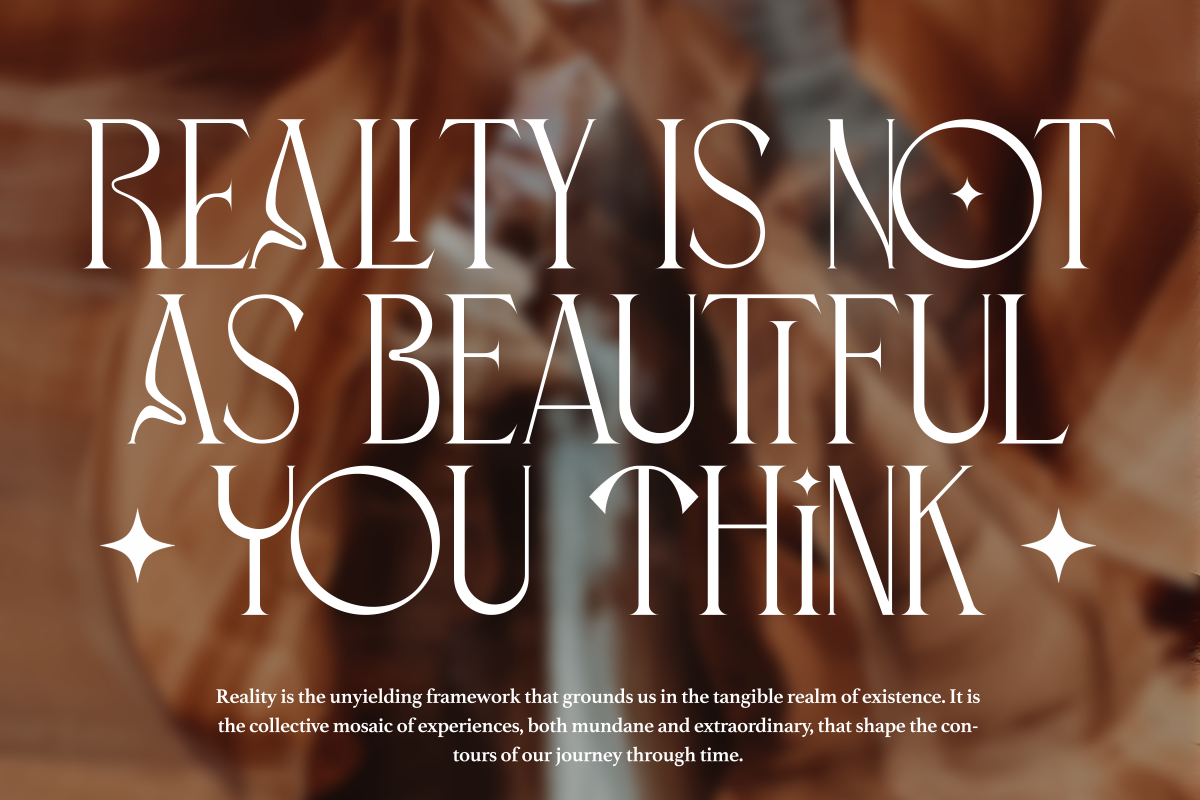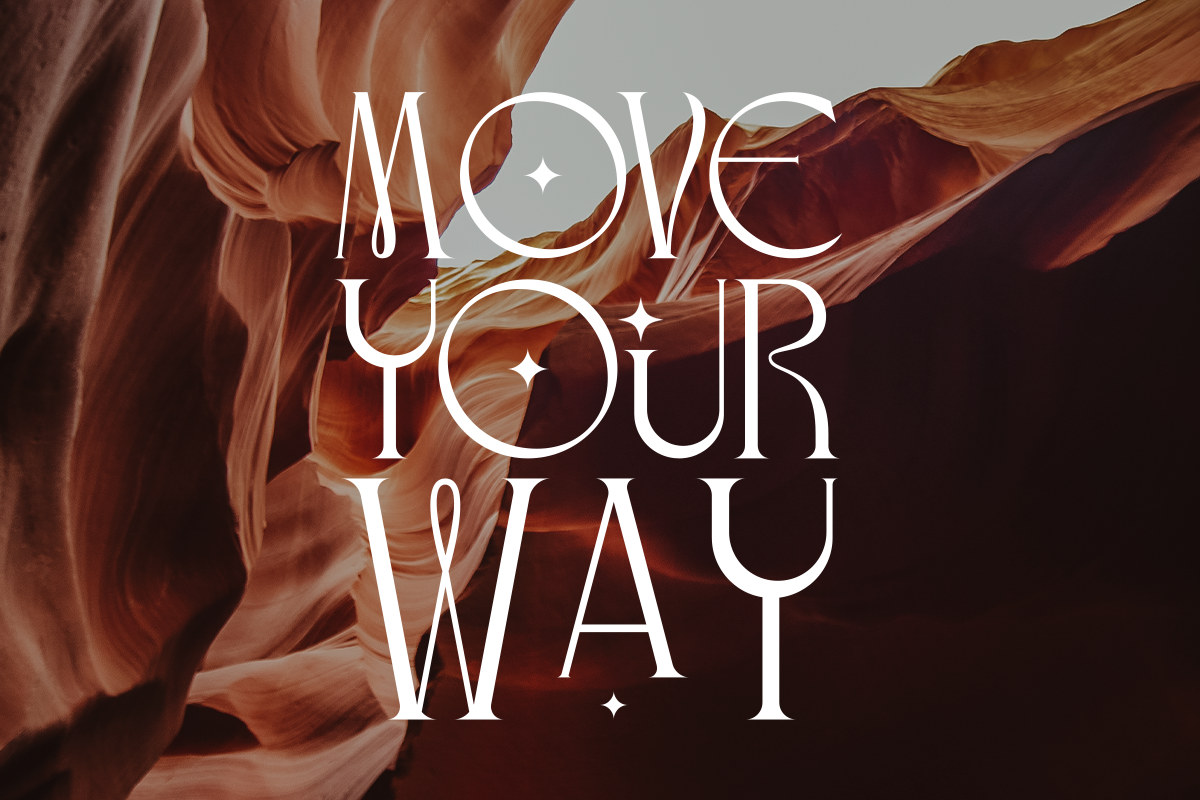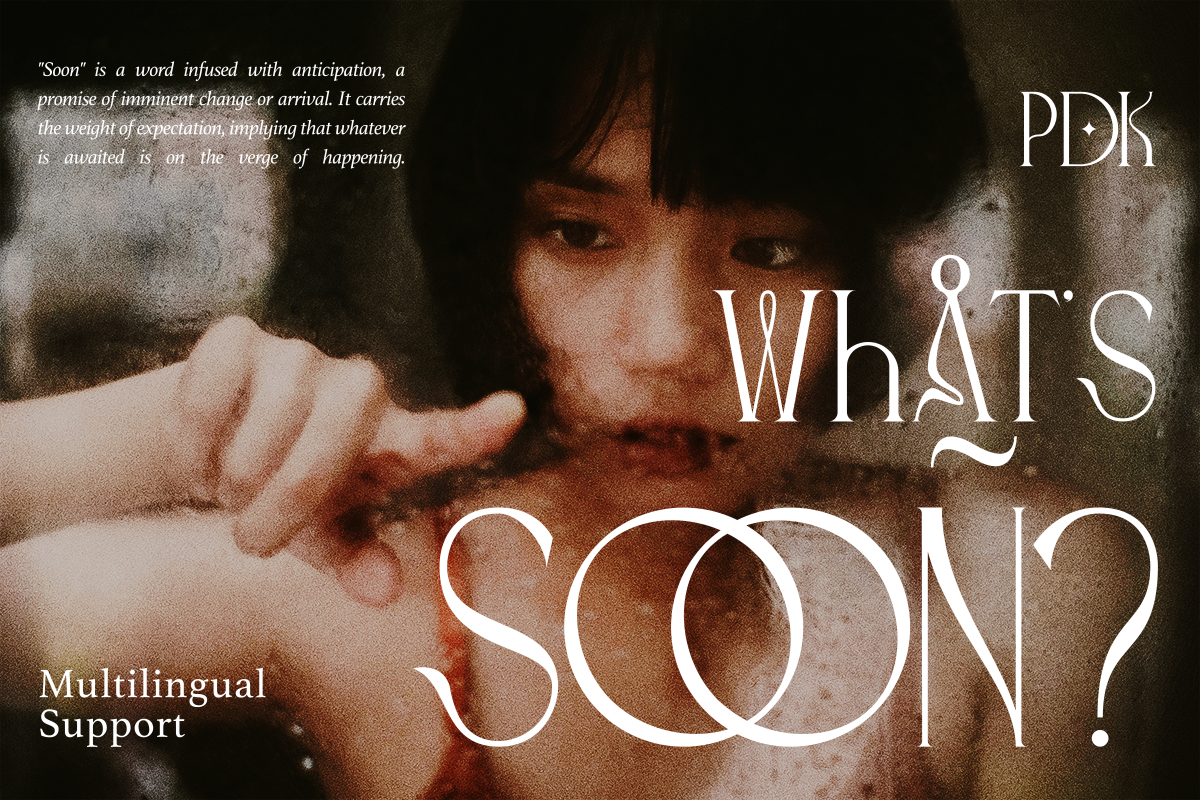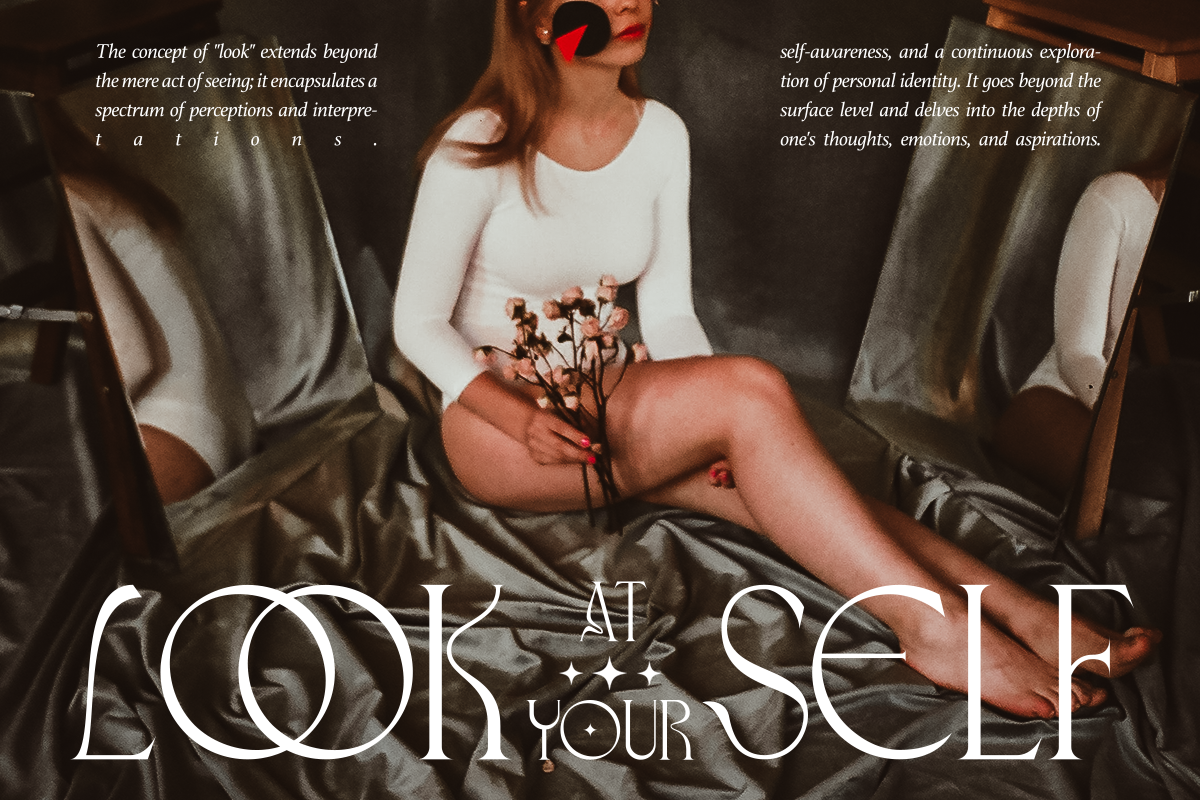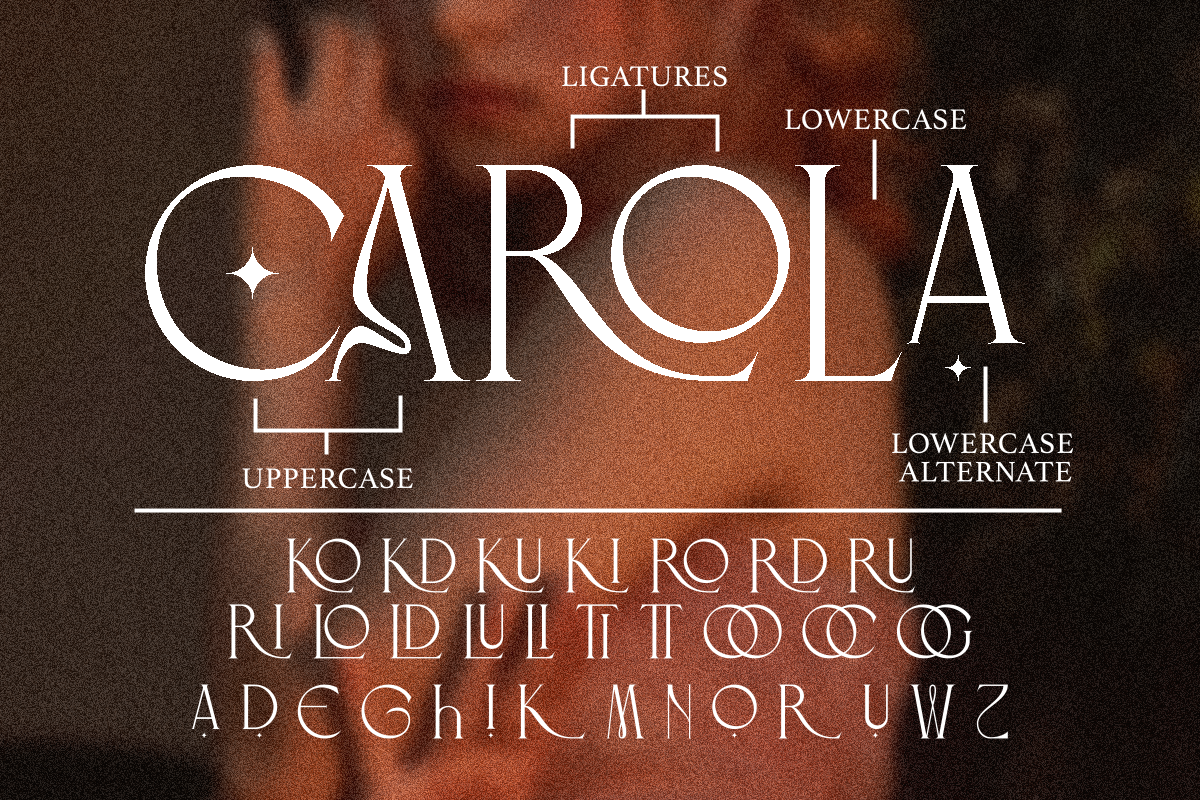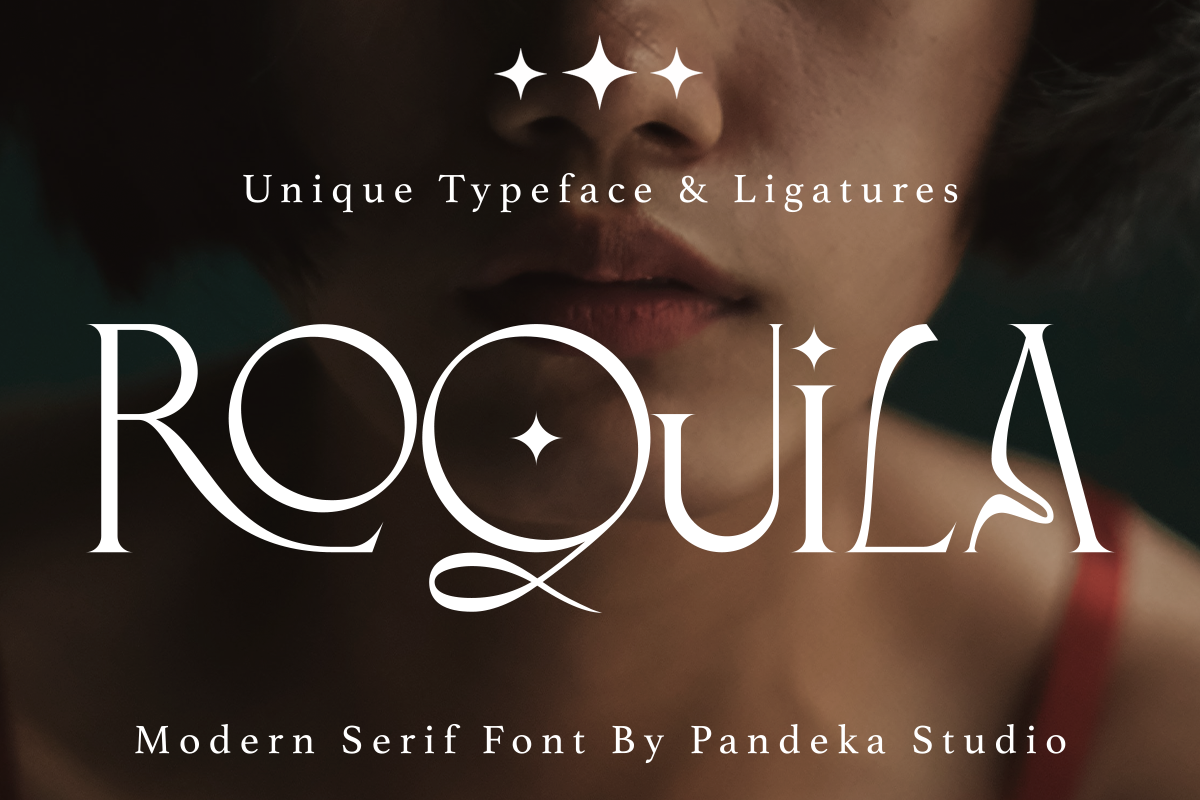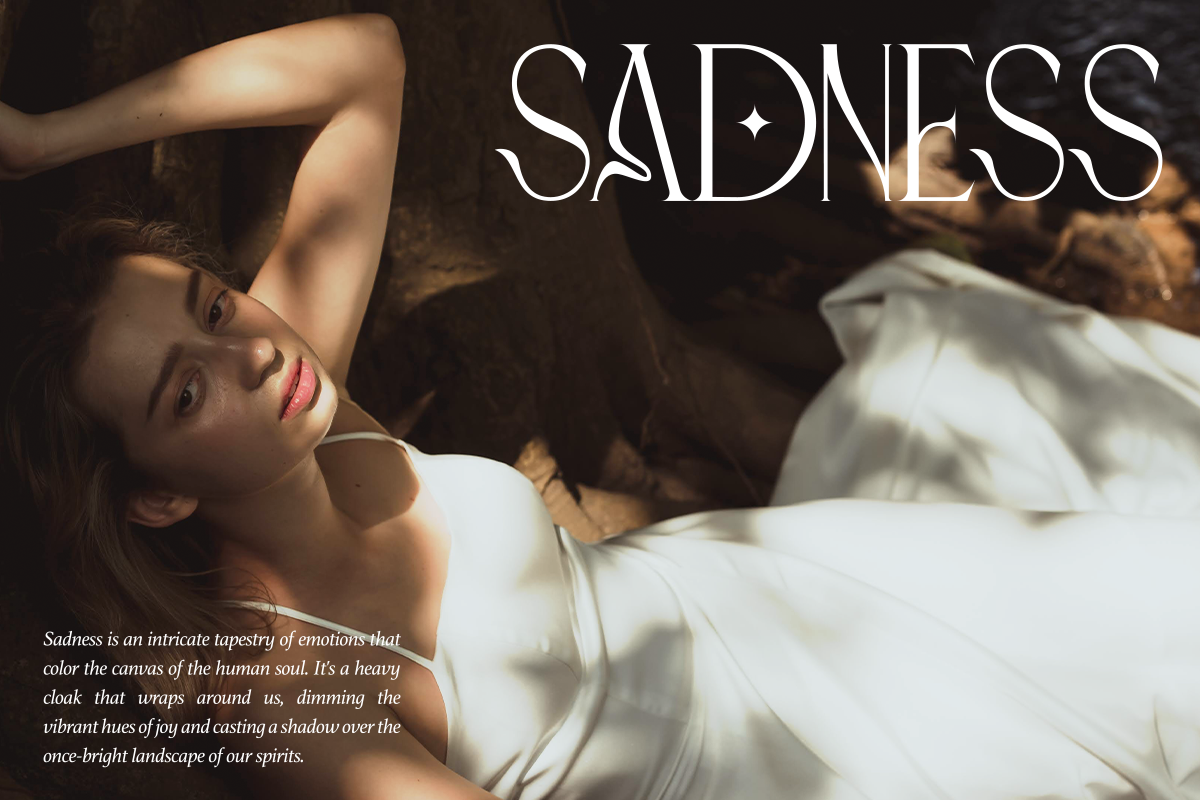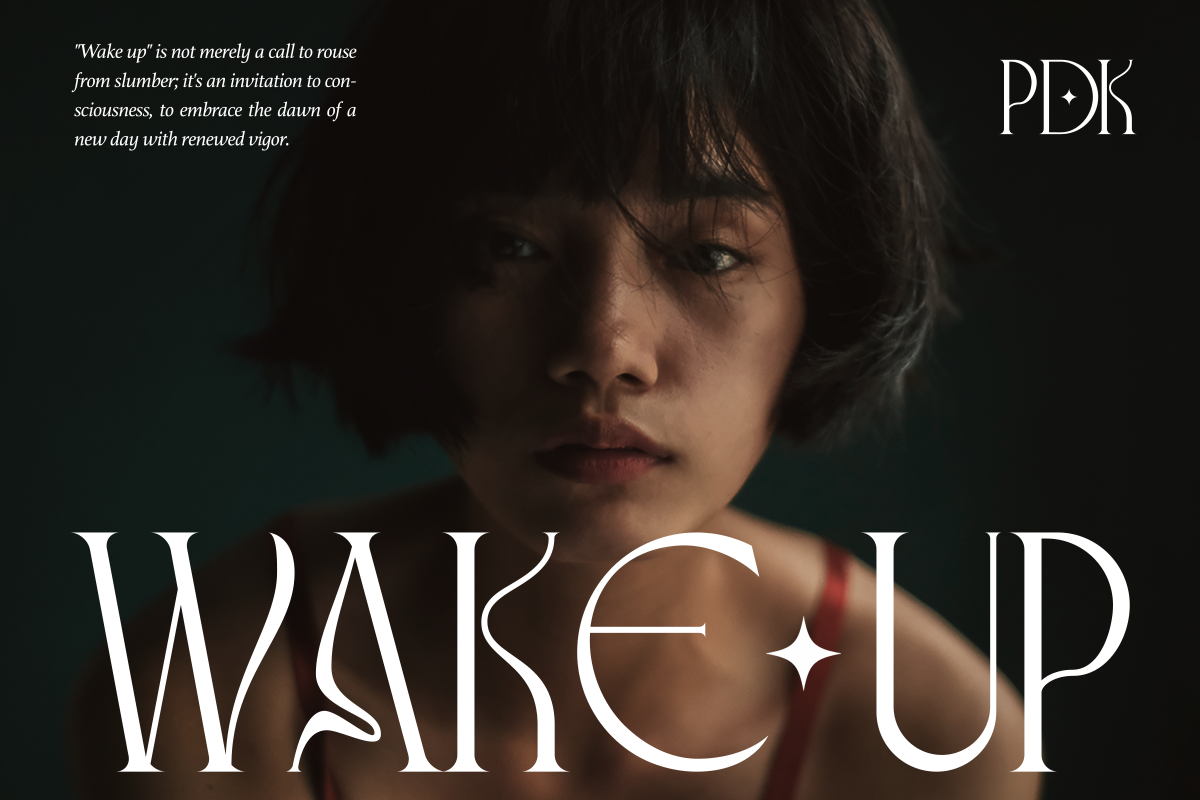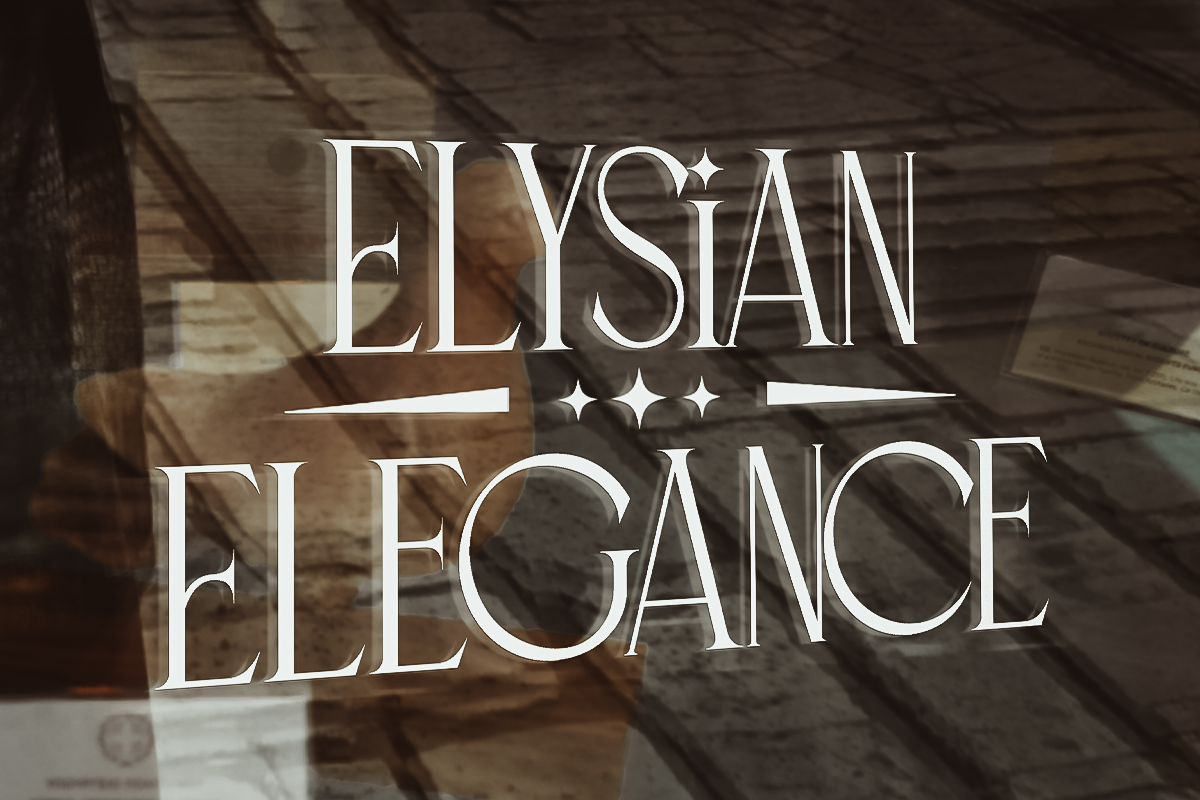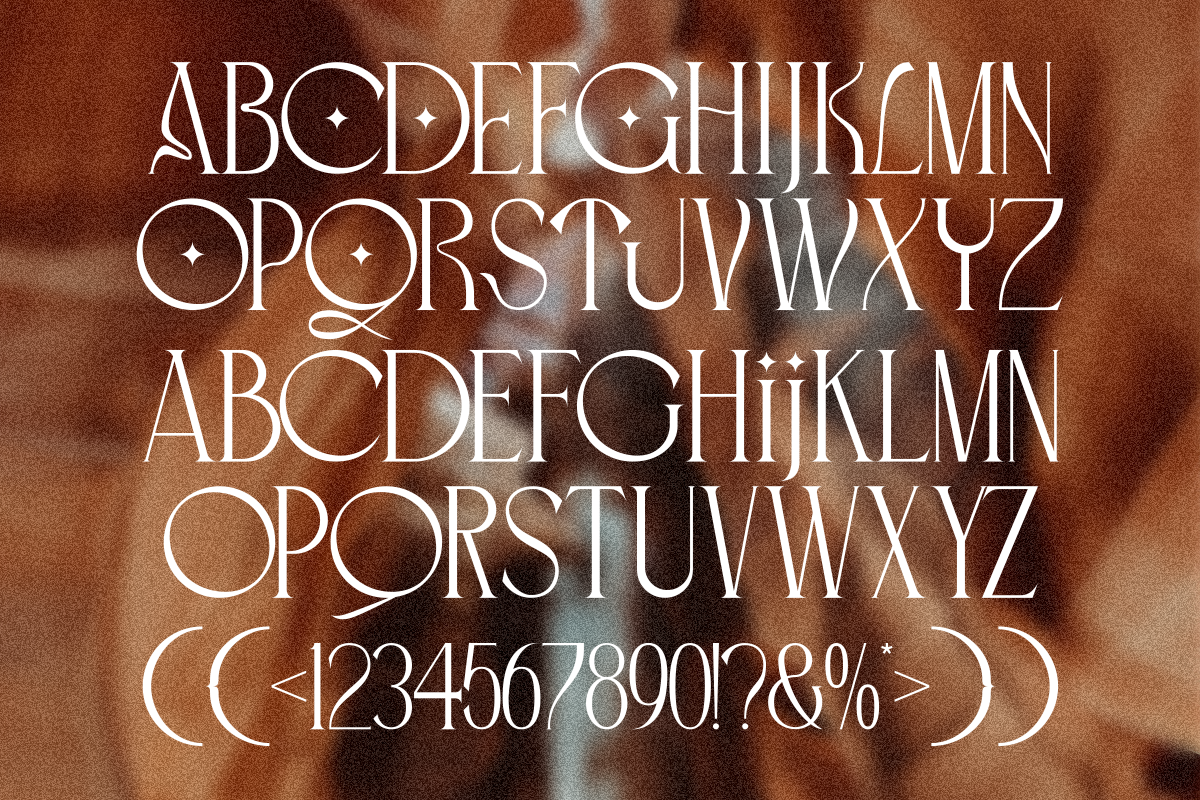
Roquila - Modern Serif Font
Say hello to the new classic nineties retro font, Roquila!
Roquila - A classic nineties retro with a complementary italic version. In the italic family, we make it different from the regular and make a shape with a unique uppercase so it looks more classic, retro but a little modern